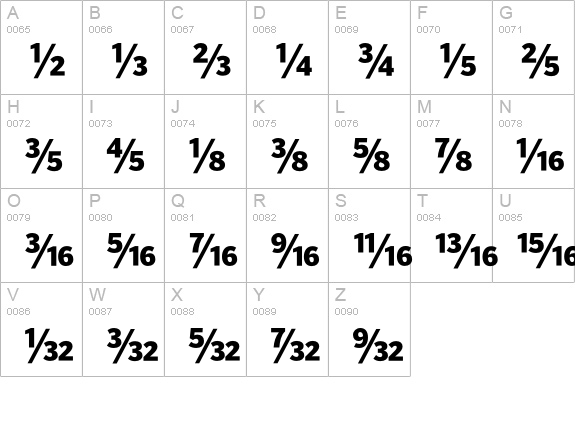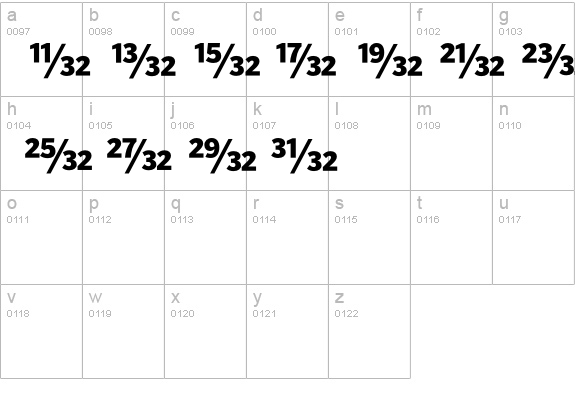
PoynterAgate-BoldFrac Font Details
PoynterAgate-BoldFrac is a bold and eye-catching font that exudes elegance and modernity. With its clean lines and distinctive design, this font is perfect for making a statement in any design project. The fractional elements add a unique touch, making it stand out from the crowd. Best of all, PoynterAgate-BoldFrac is available for free download at FontsMarket.com. Whether you're working on a branding project, website design, or print materials, this versatile font is sure to make a lasting impression. Don't miss out on the opportunity to enhance your designs with this stunning typeface, now easily accessible and completely free to use.